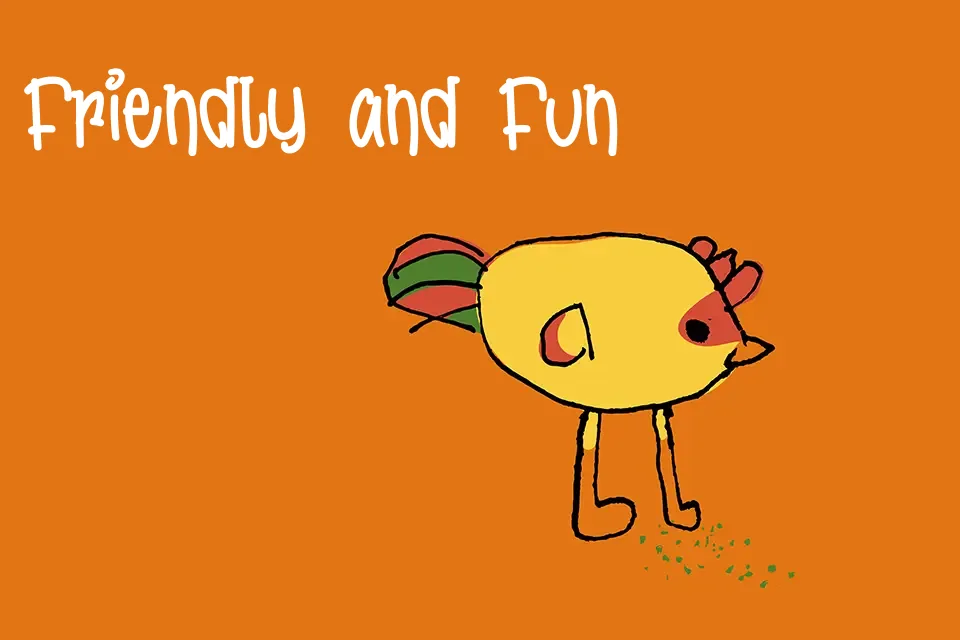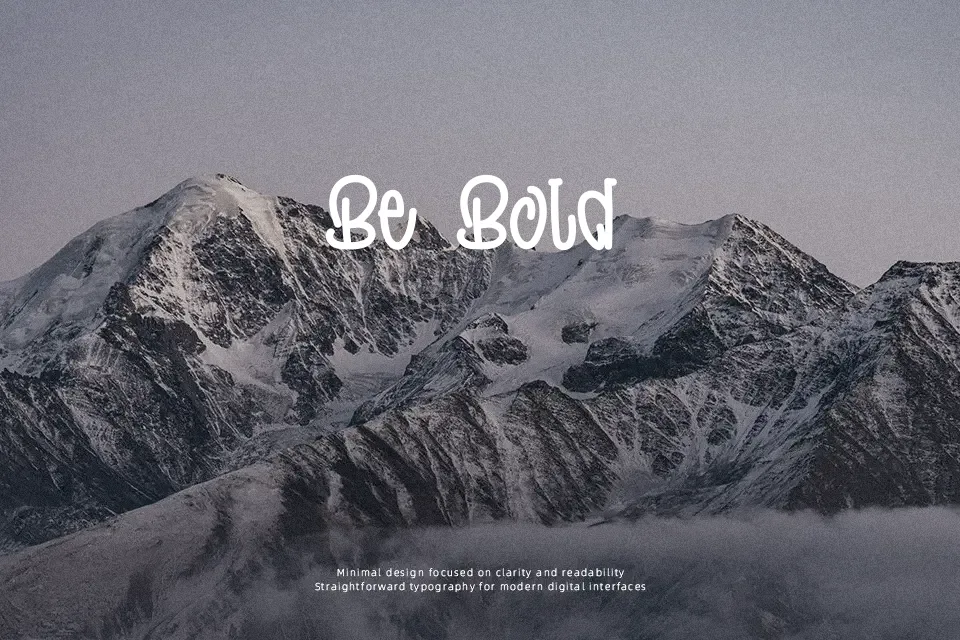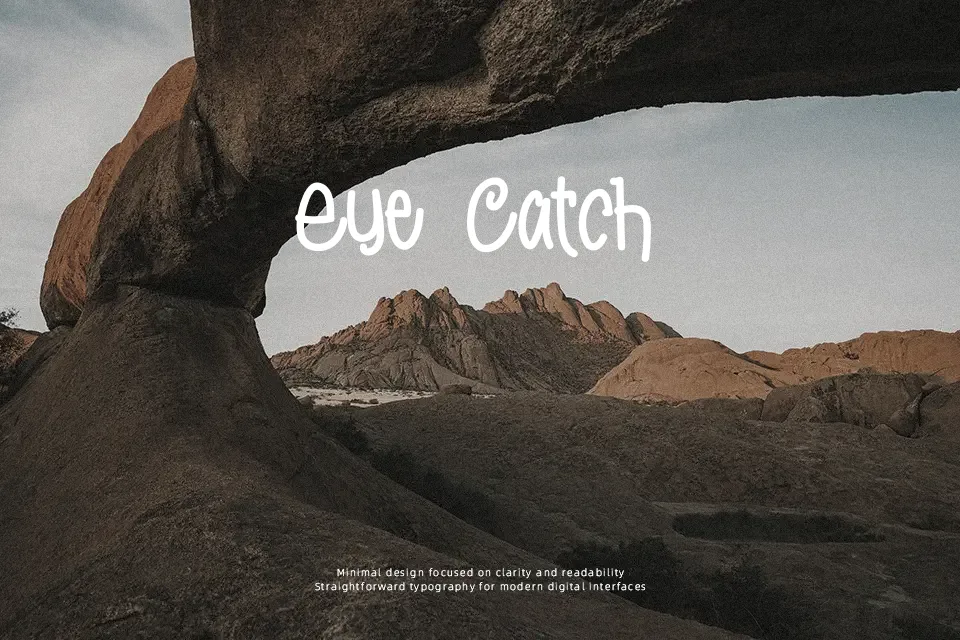
Sushi Omelette Font
Designed by Lemoncraft.s
Sushi Omelette Font showcases an energetic handwritten aesthetic defined by curly terminal loops, rounded stroke weights, and asymmetric character proportions. Generous inter-letter spacing helps prevent the intricate flourishes from tangling, maintaining decent clarity in short title treatments and casual branding assets. The lively rhythm works well for restaurant signage, artisanal product wrappers, and juvenile apparel graphics where an approachable, cheerful tone is required. However, the ornate loops and uneven character widths significantly hinder reading comfort across dense multi-line paragraphs. The typeface performs reliably in large display settings, but tight tracking or compact editorial columns quickly cause the intricate swirling strokes to look cluttered.
– children’s apparel graphics
– artisanal bakery packaging
– playful restaurant menu titles
– greeting card headlines
– long editorial paragraphs
– corporate financial reports
– small mobile interface text
– legal contract documentation
Perfect for branding, headline, and invitation, with a creative and decorative style.